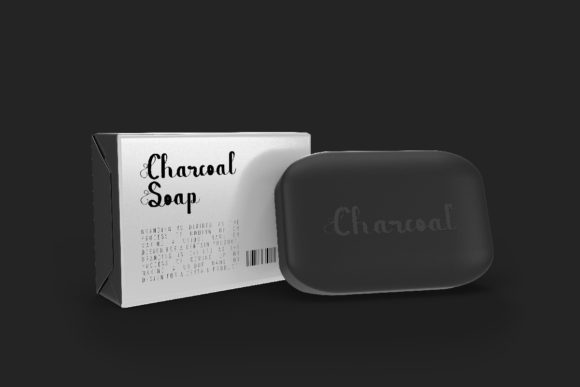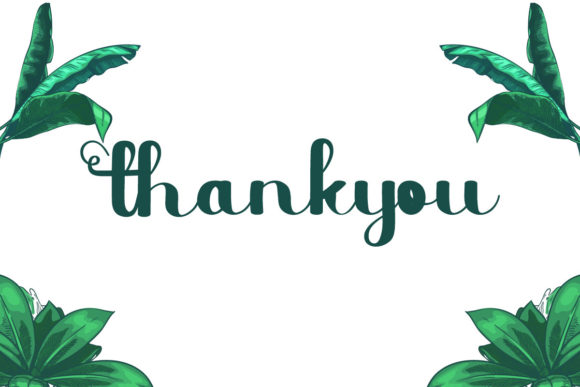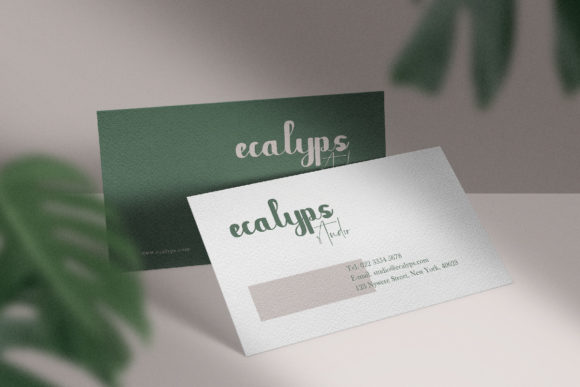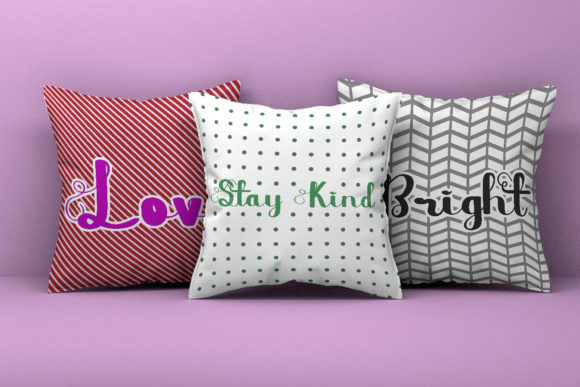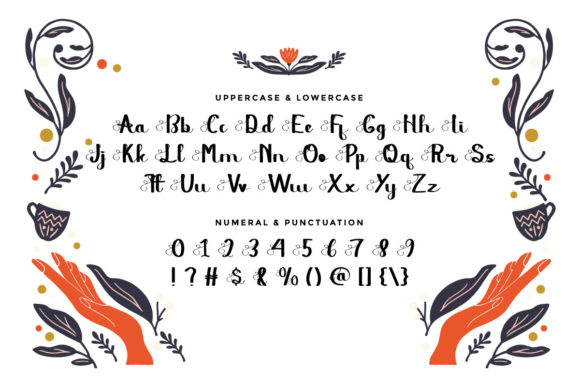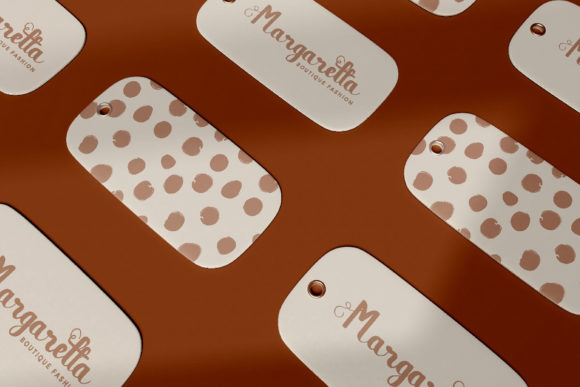
About Happy Smile Font
Happy Smile is a fun handwritten font with a unique lettering style. This font is crafted carefully in every single scratch, created to look as close to natural handwriting as possible so that it elevates your writing. Each character has special tails, so your text will look unique and exclusive.
This awesome typeface is for anyone who needs unique and stylish typography.
Happy Smile is perfect for weddings, engagement events, branding, invitations, florist, hair stylish, makeup artist, event organizer, movie, music, festival, promotions, social media, etc.